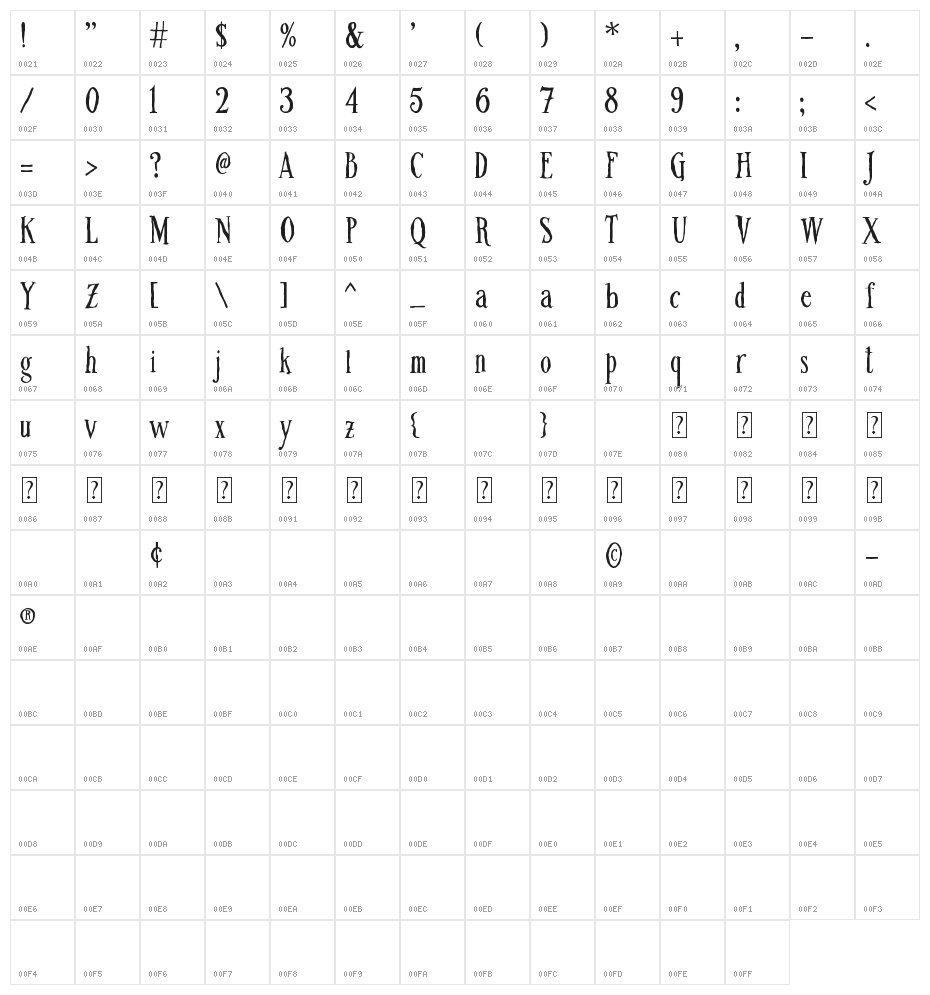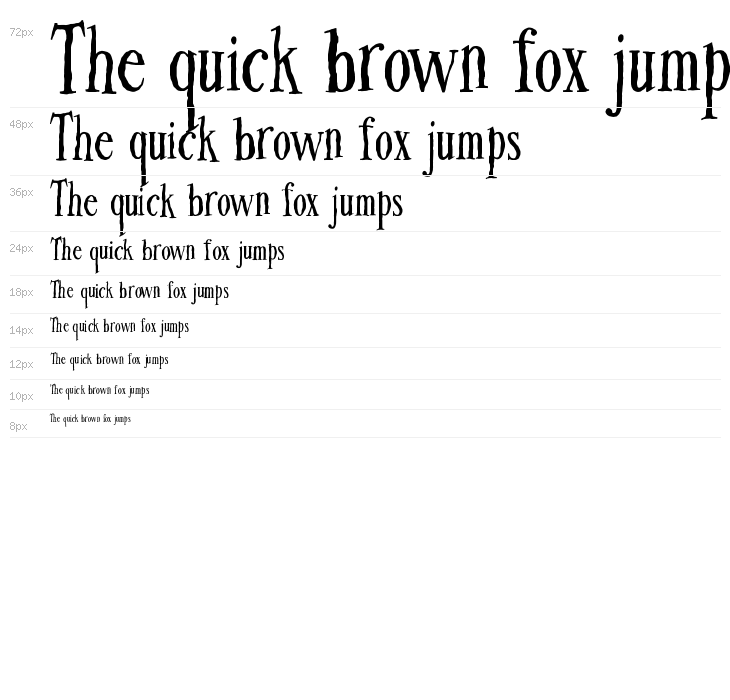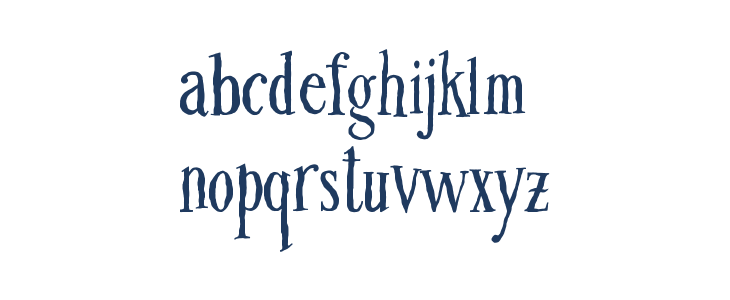
Boxtrolls Font Font
Boxtrolls Font Description
This font features a whimsical and slightly irregular design, reminiscent of hand-drawn letters. The characters have a playful, quirky appearance with uneven strokes and varying thickness, giving them a lively and animated feel. The uppercase letters are tall and narrow, while the lowercase letters maintain a consistent style with a slightly more compact form. Numbers and special characters follow the same playful aesthetic, adding to the font's overall charm. The font's unique style makes it suitable for creative and fun projects, where a touch of personality and individuality is desired.